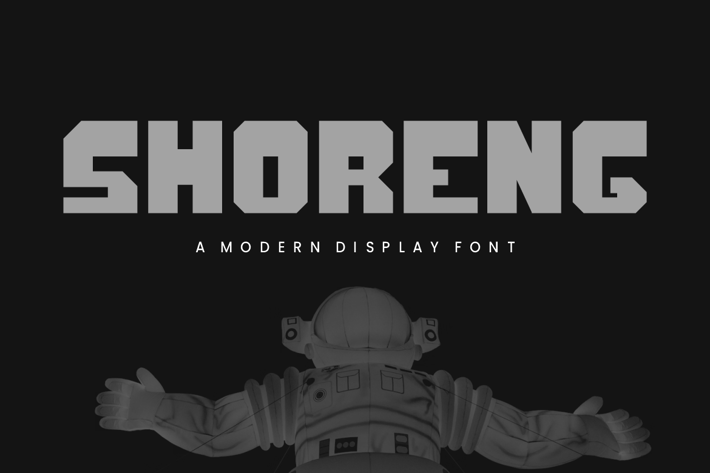
Shoreng Modern Display Font
Shoreng Modern Display Font Font is unique . Ready to use for your design like labeling, movie sceen, poster, movie title, gigs, album covers, logos, and much more.